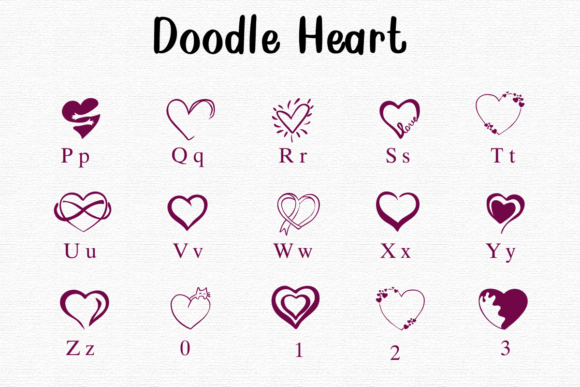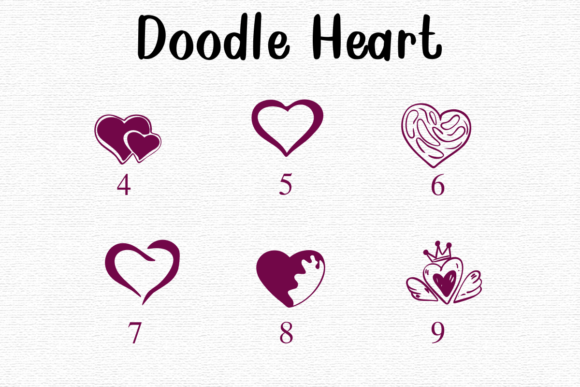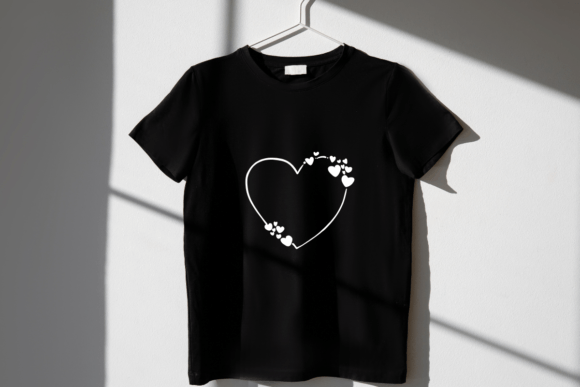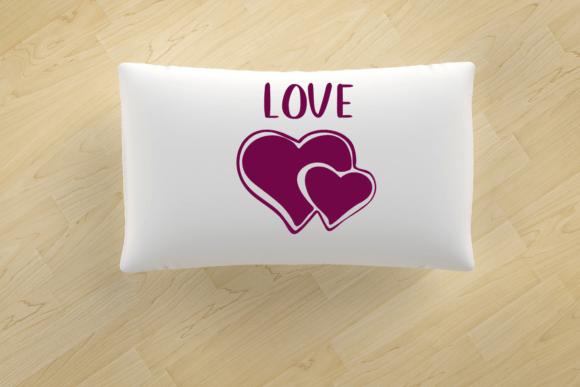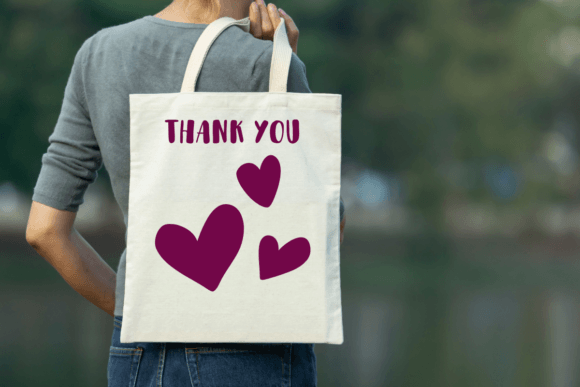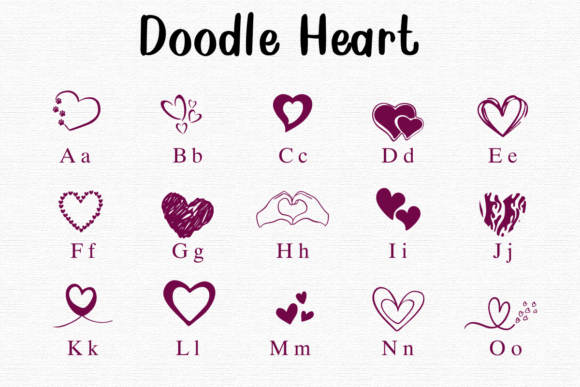
Doodle Heart Font: Adding a Touch of Whimsy and Love to Your Designs
Are you tired of using the same old fonts in your designs? Do you want to add a touch of whimsy and personality to your projects? Look no further than the Doodle Heart Font! This charming font is like a picture book in letters, full of cute hearts and doodles that will make your messages extra special.
What is Doodle Heart Font?
Doodle Heart Font is a unique and playful font that is perfect for designers, crafters, and anyone who loves to add a personal touch to their projects. Each letter in the font is a little work of art, carefully crafted to bring a smile to your face. The font features a range of adorable hearts, doodles, and other illustrations that will add a touch of fun and love to your designs.
Features of Doodle Heart Font
So, what makes Doodle Heart Font so special? Here are just a few of its features:
- Cute and playful design: Each letter in the font is designed to be cute and playful, making it perfect for projects that require a touch of whimsy.
- Hearts and doodles: The font features a range of adorable hearts and doodles that will add a touch of fun and love to your designs.
- Unique and handmade: Each letter in the font is carefully crafted by hand, making it a truly unique and special font.
- Perfect for crafty projects: Doodle Heart Font is perfect for crafty projects, such as scrapbooking, card making, and journaling.
Uses for Doodle Heart Font
So, what can you use Doodle Heart Font for? The possibilities are endless! Here are a few ideas to get you started:
- Scrapbooking: Add a touch of whimsy to your scrapbook pages with Doodle Heart Font.
- Card making: Create handmade cards that are truly special with Doodle Heart Font.
- Journaling: Add a personal touch to your journal entries with Doodle Heart Font.
- Social media graphics: Use Doodle Heart Font to create fun and engaging social media graphics.
- Digital art: Incorporate Doodle Heart Font into your digital art projects for a unique and playful touch.
Tips for Using Doodle Heart Font
Here are a few tips for using Doodle Heart Font in your projects:
- Use it sparingly: While Doodle Heart Font is cute and playful, it can be overwhelming if used too much. Use it sparingly to add a touch of whimsy to your projects.
- Pair it with other fonts: Pair Doodle Heart Font with other fonts to create a unique and interesting contrast.
- Experiment with colors: Don’t be afraid to experiment with different colors and textures when using Doodle Heart Font.
In conclusion, Doodle Heart Font is a unique and playful font that is perfect for designers, crafters, and anyone who loves to add a personal touch to their projects. With its cute and playful design, hearts and doodles, and handmade feel, Doodle Heart Font is sure to add a touch of whimsy and love to your designs. So why not give it a try and see what amazing projects you can create?